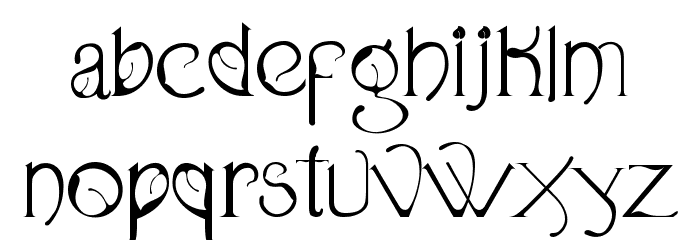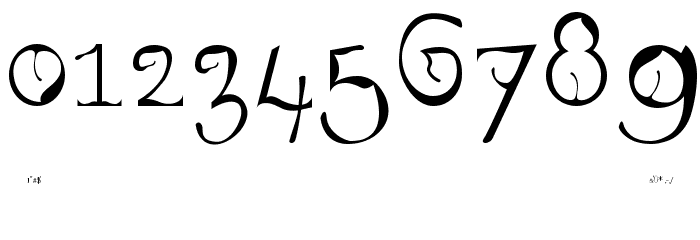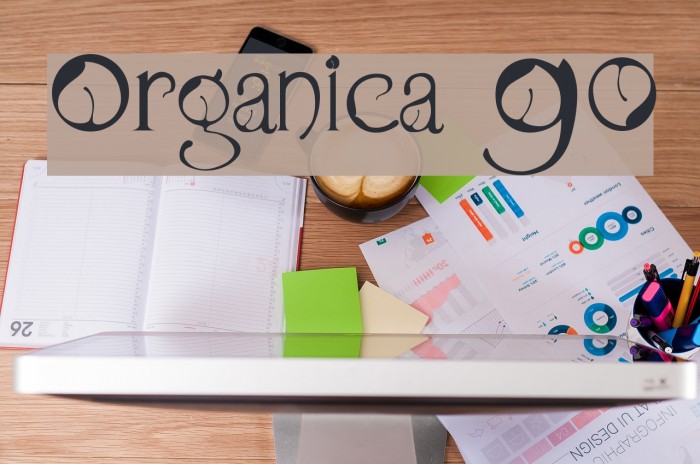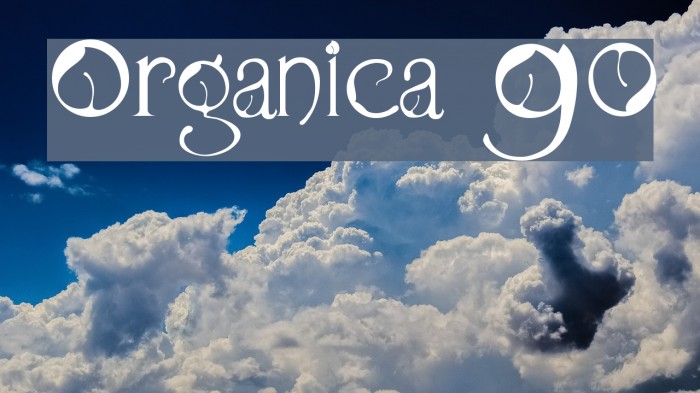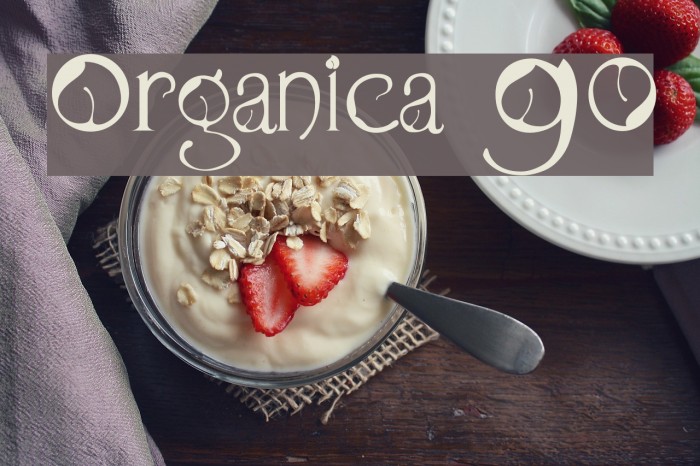
Organica 90 Font
This font features a unique blend of organic and geometric elements, creating a visually intriguing and artistic style. The uppercase letters exhibit a bold and decorative flair, with intricate curves and sharp angles that give them a distinctive appearance. The lowercase letters maintain a similar aesthetic, with a slightly more subdued and elegant form. The numbers are stylized to match the overall theme, incorporating both rounded and angular elements. Special characters are designed with the same attention to detail, ensuring consistency across the entire typeface. This font's artistic nature makes it ideal for creative and expressive design projects.
An artistic and decorative font with organic and geometric elements.
- Proposed Projects: Ideal for branding, posters, album covers, and artistic projects that require a unique and expressive typeface.